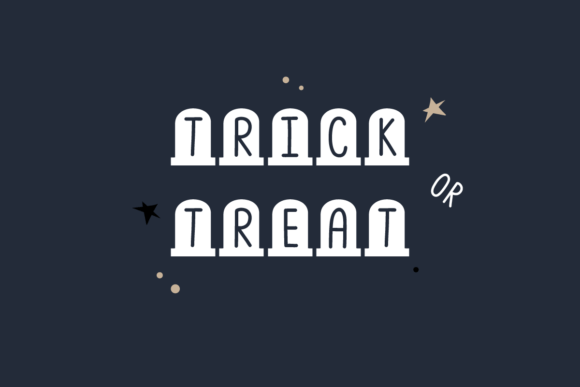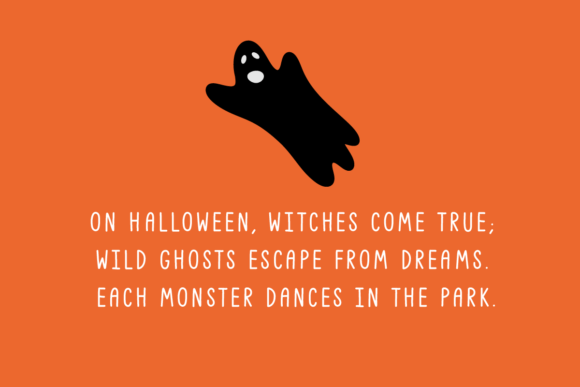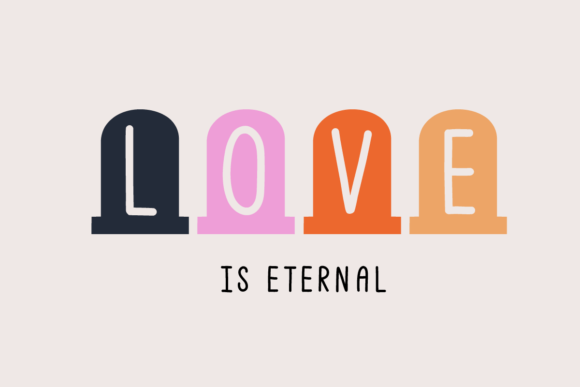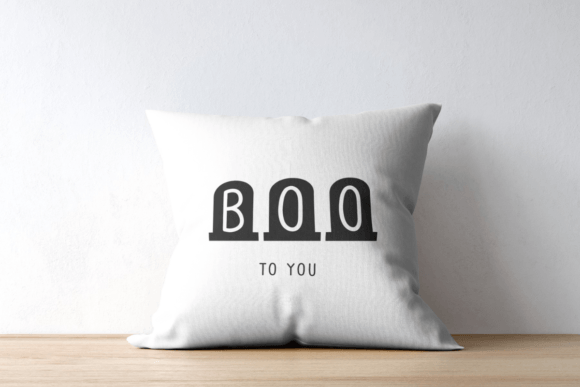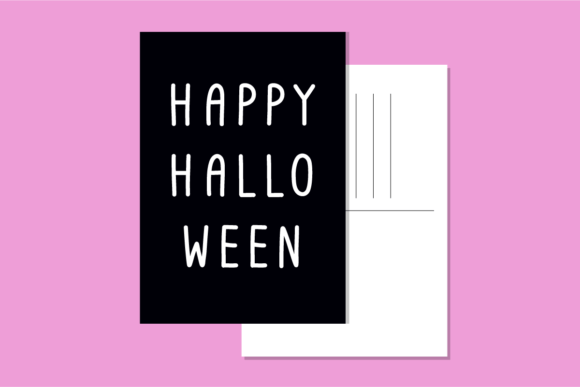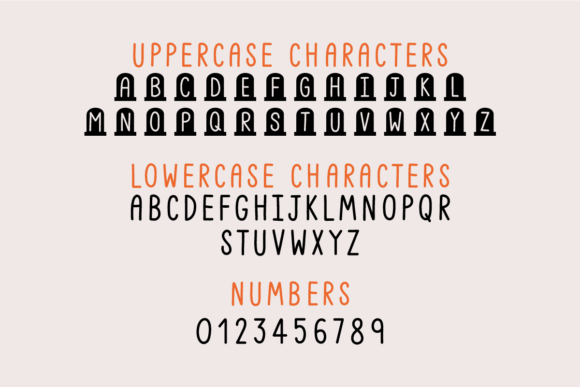
Unleash the Spooky Charm with Graveyard Font: The Ultimate Playful Tombstones Font
Are you looking for a font that adds a playful touch to your designs, especially during the spookiest time of the year – Halloween? Or perhaps you want to create retro-style Christmas invitations, fun mugs, or quirky stickers? Look no further than the Graveyard Font, a delightful and versatile typeface that’s perfect for a wide range of creative projects.
What is Graveyard Font?
Graveyard Font is a playful tombstones font designed to bring a touch of whimsy and humor to your designs. Its unique, rustic charm makes it an ideal choice for Halloween-themed projects, but its versatility ensures it can be used for various other applications, from Christmas invitations to logo designs.
Perfect for Halloween Projects
Halloween is the perfect excuse to get creative with Graveyard Font. Use it to design:
- Eye-catching posters and flyers for Halloween parties
- C spooky yet fun t-shirts and hoodies
- Hauntingly playful stickers and decals
- Creeepy cute mugs and water bottles
With Graveyard Font, you can create designs that are both eerie and endearing, making it a must-have for any Halloween-themed project.
Beyond Halloween: Other Uses for Graveyard Font
While Graveyard Font is perfect for Halloween, its playful and retro charm makes it suitable for a wide range of projects beyond the spookiest time of the year. Consider using it for:
- Retro-style Christmas invitations and holiday cards
- Fun and quirky logo designs for businesses and brands
- Playful quotes and typography art
- Greeting cards and invitations for birthdays, anniversaries, and more
- Creative packaging designs for products
Why Choose Graveyard Font?
So, what makes Graveyard Font so special? Here are just a few reasons why designers and crafters love this playful tombstones font:
- Unique and playful design: Graveyard Font adds a touch of whimsy and humor to any design
- Versatile: Suitable for a wide range of projects, from Halloween-themed designs to retro-style Christmas invitations
- High-quality: Professionally designed and crafted for optimal clarity and legibility
Tips for Using Graveyard Font
To get the most out of Graveyard Font, here are a few tips to keep in mind:
- Experiment with colors: Try pairing Graveyard Font with bold, bright colors to create eye-catching designs
- Mix and match: Combine Graveyard Font with other fonts and graphics to create unique and interesting designs
- Play with textures: Add depth and interest to your designs by incorporating textures and patterns